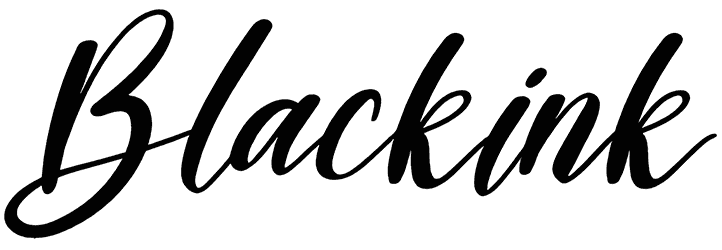
Blackink Font
How stunning your Thanksgiving postcard will be if you set a classic handwritten font like this on its words. The curly and soft letters of the Blackink font would be matched with different formal and informal projects. We offer you to try this chic poster font on your novel layout and overjoy the final showcase.